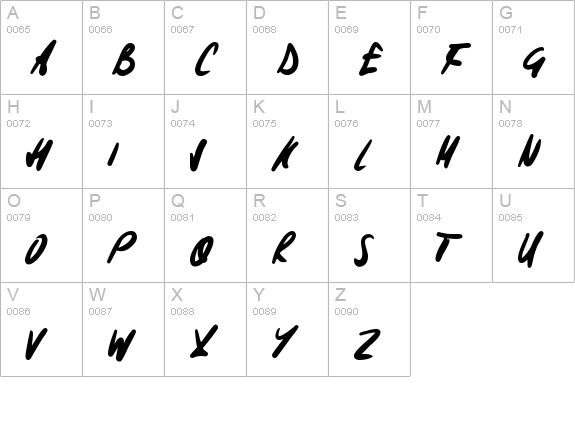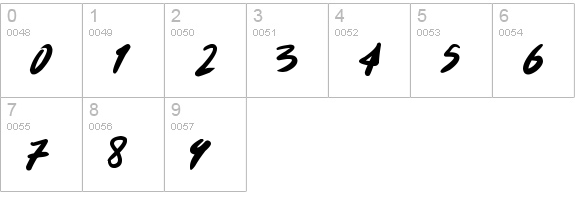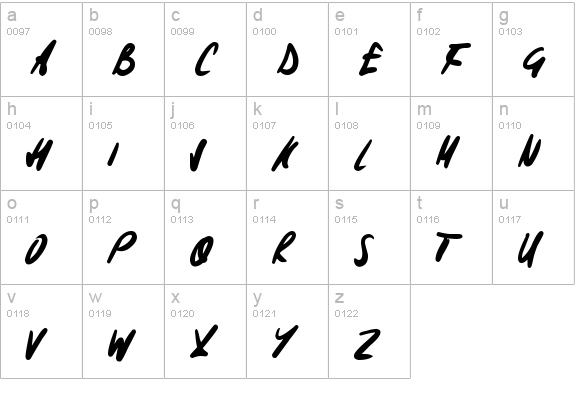
Signoff Font Details
Signoff is a free for personal use font in the Script > Handwritten category, designed by Darrell Flood. It has been downloaded 80 times and is available for Windows, Mac and Linux.
Signoff font is a versatile and modern typeface that exudes sophistication and elegance. With its clean lines and sleek design, Signoff is perfect for a wide range of projects, from branding and advertising to editorial and web design. This font features a unique blend of classic and contemporary elements, making it a standout choice for any creative endeavor.